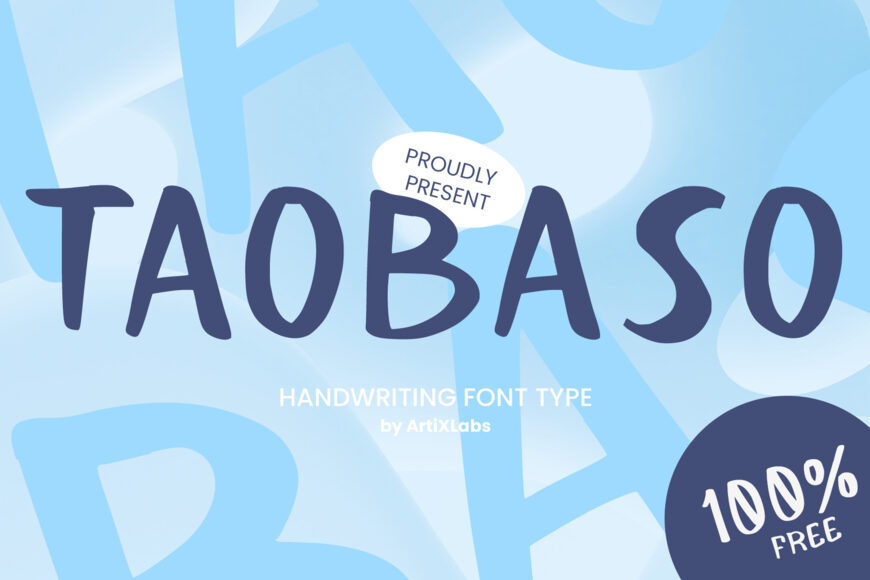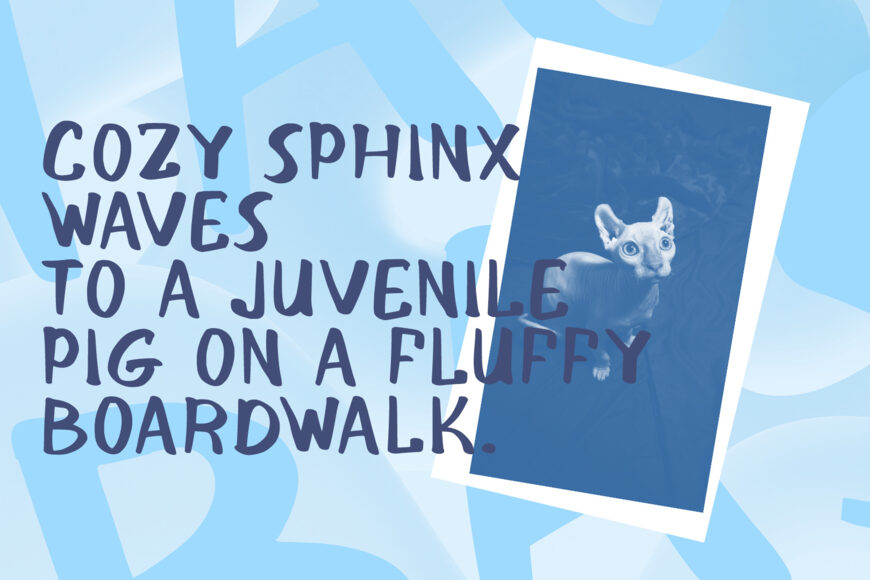
Bring a cheerful, handcrafted feel to your designs with Tao Baso! This all-caps handwritten display font combines bold marker-like strokes, softly rounded ends, and subtle variations in character height for an authentic, playful look. Its lively yet welcoming style adds a personal touch to headlines, quotes, and creative projects.
Perfect for children’s books, classroom printables, casual quote graphics, packaging, social media banners, sticker designs, and custom Cricut or Silhouette SVG crafts.